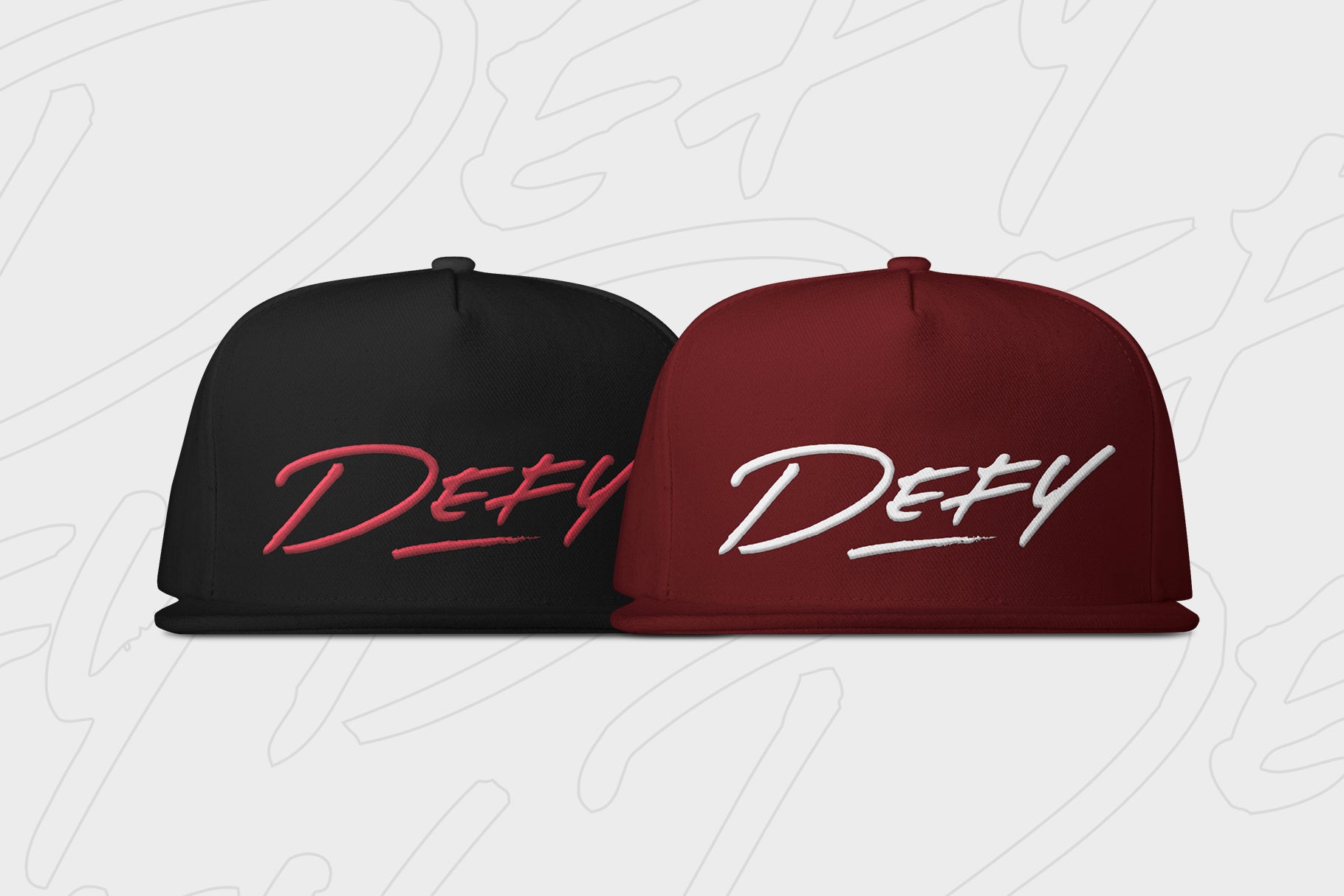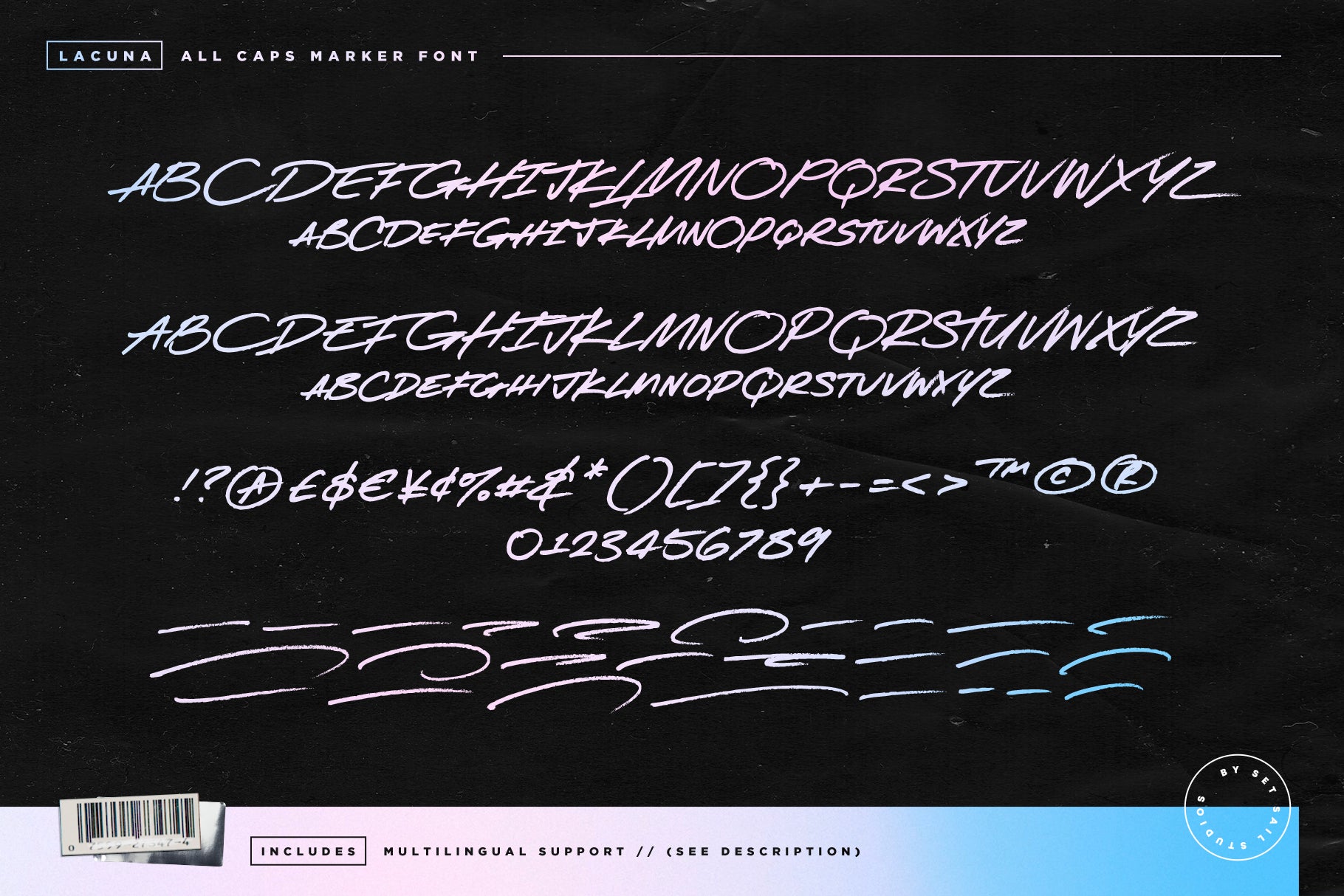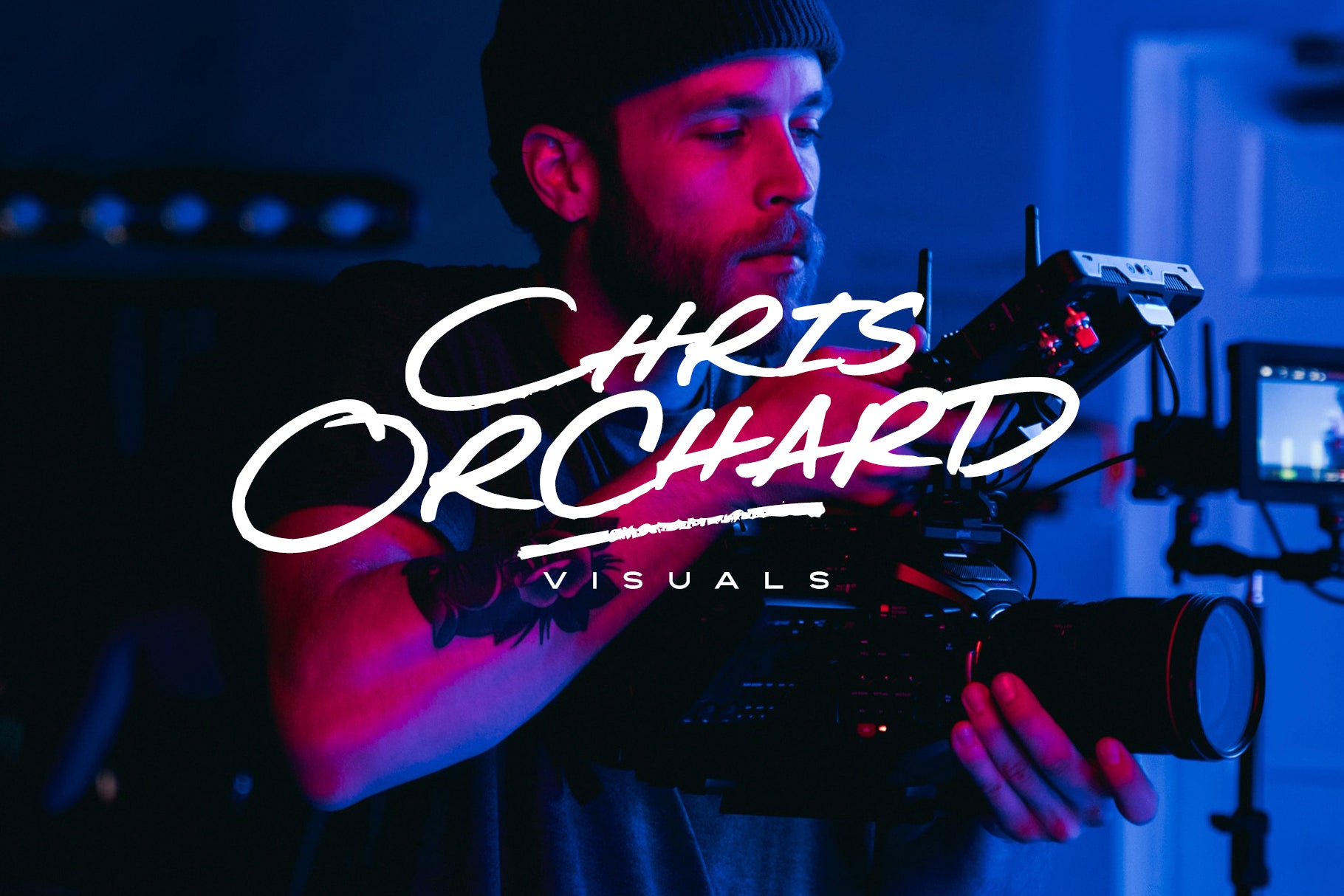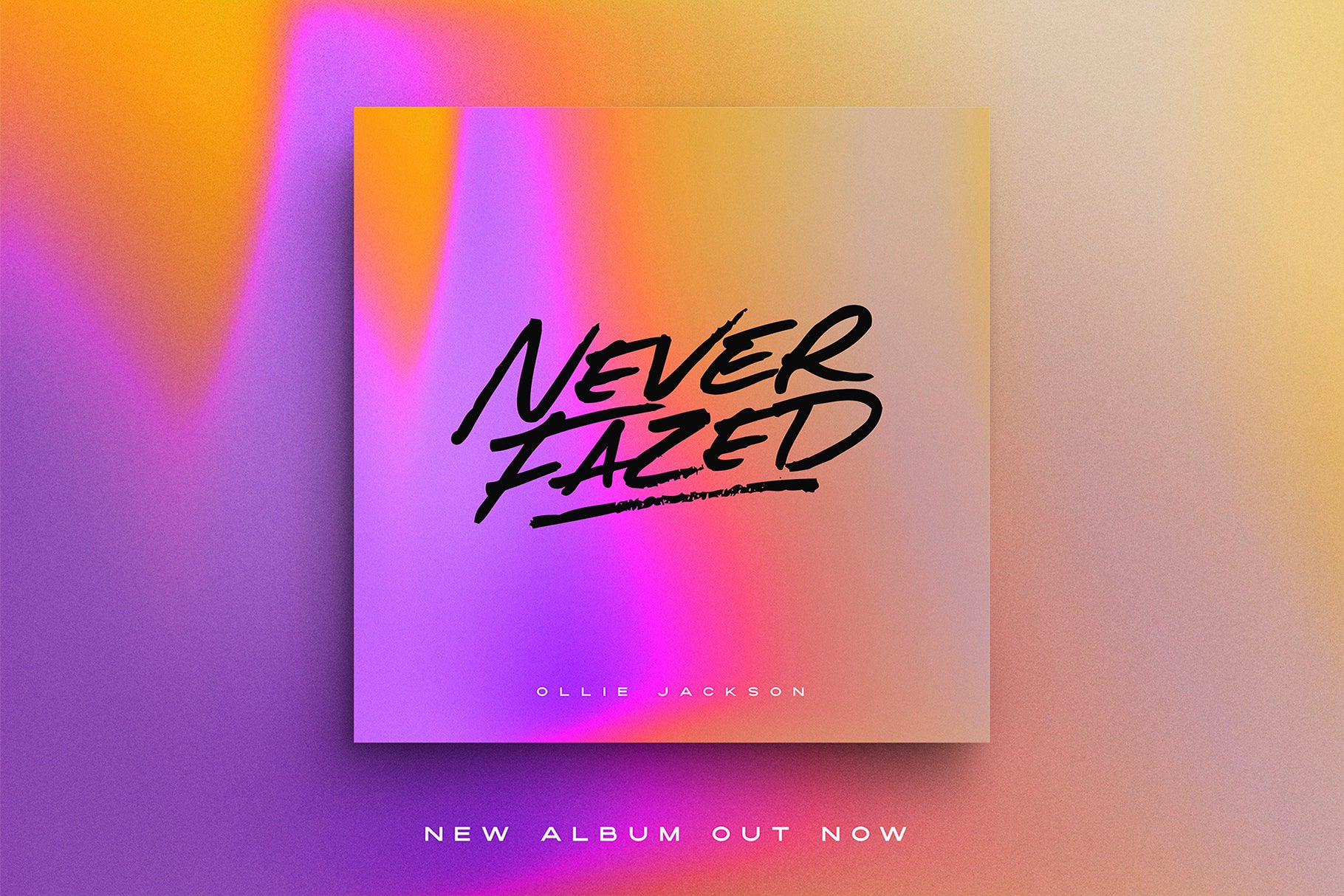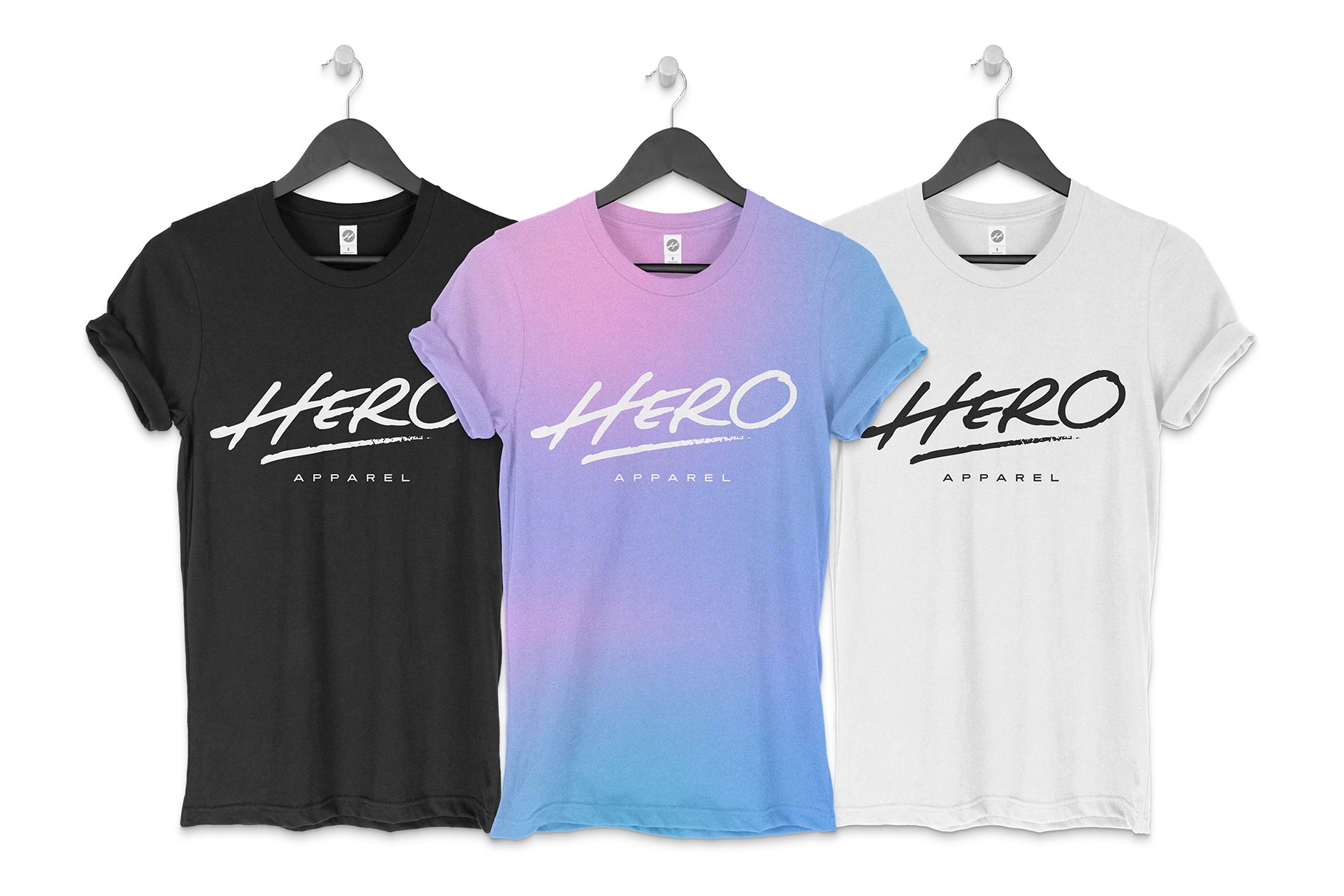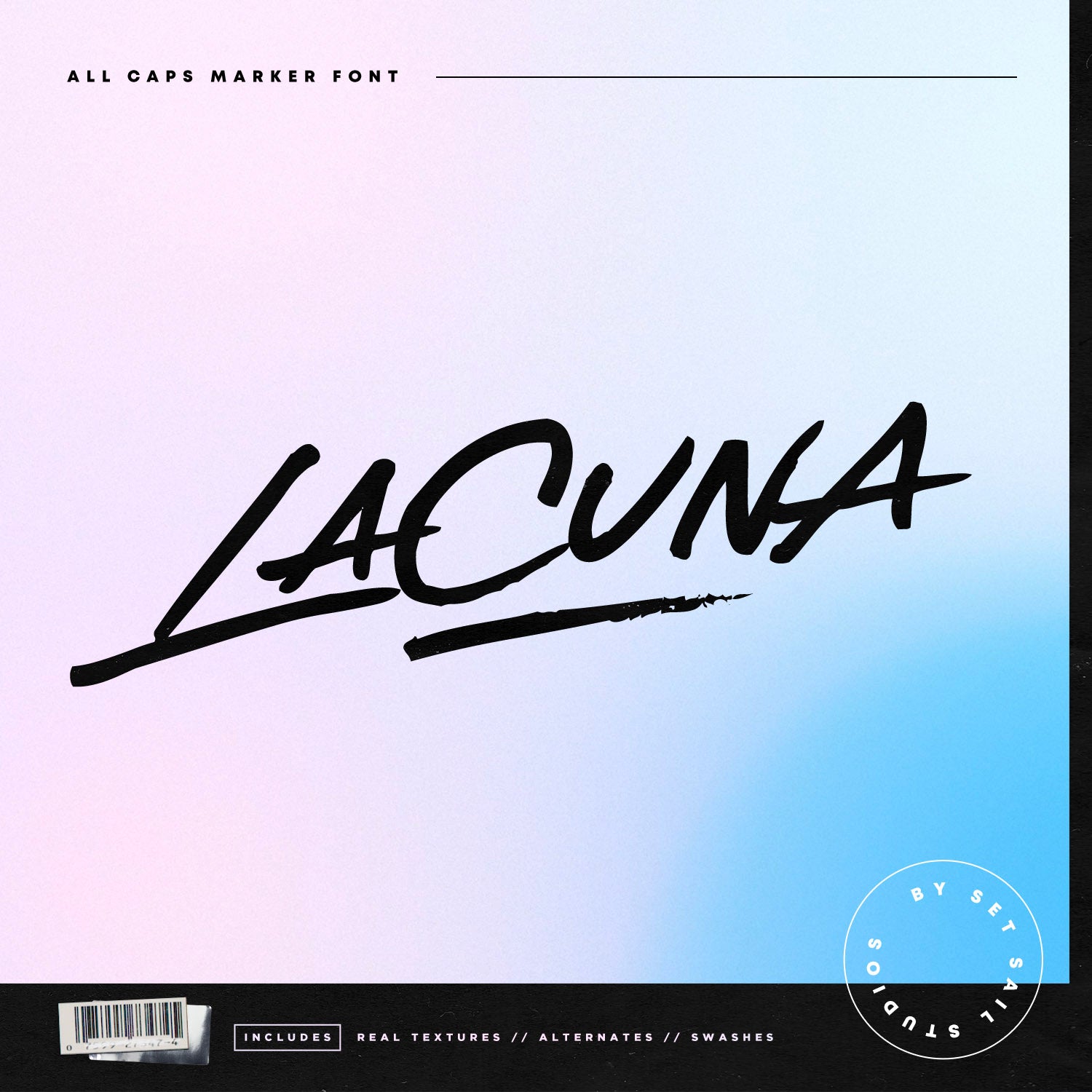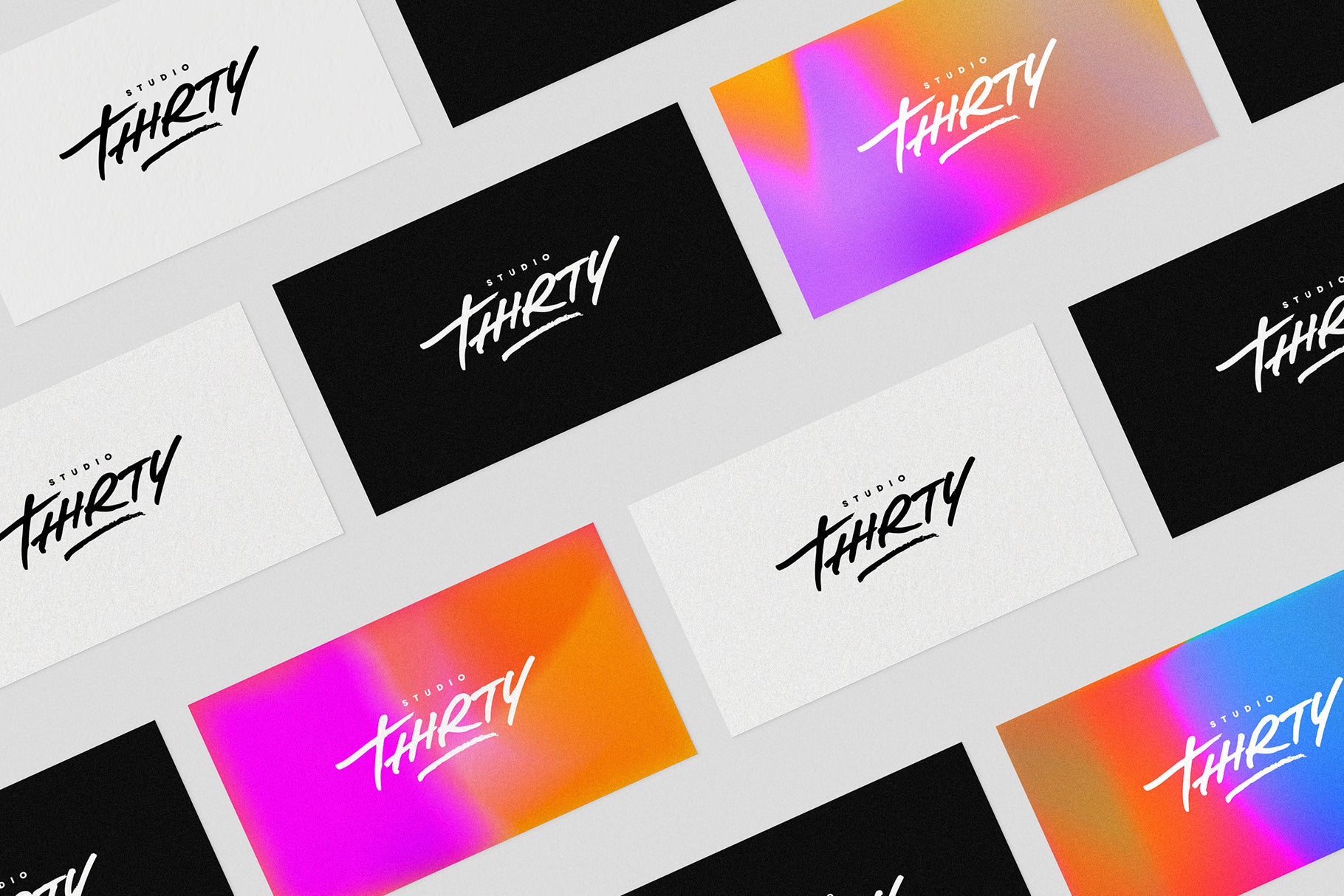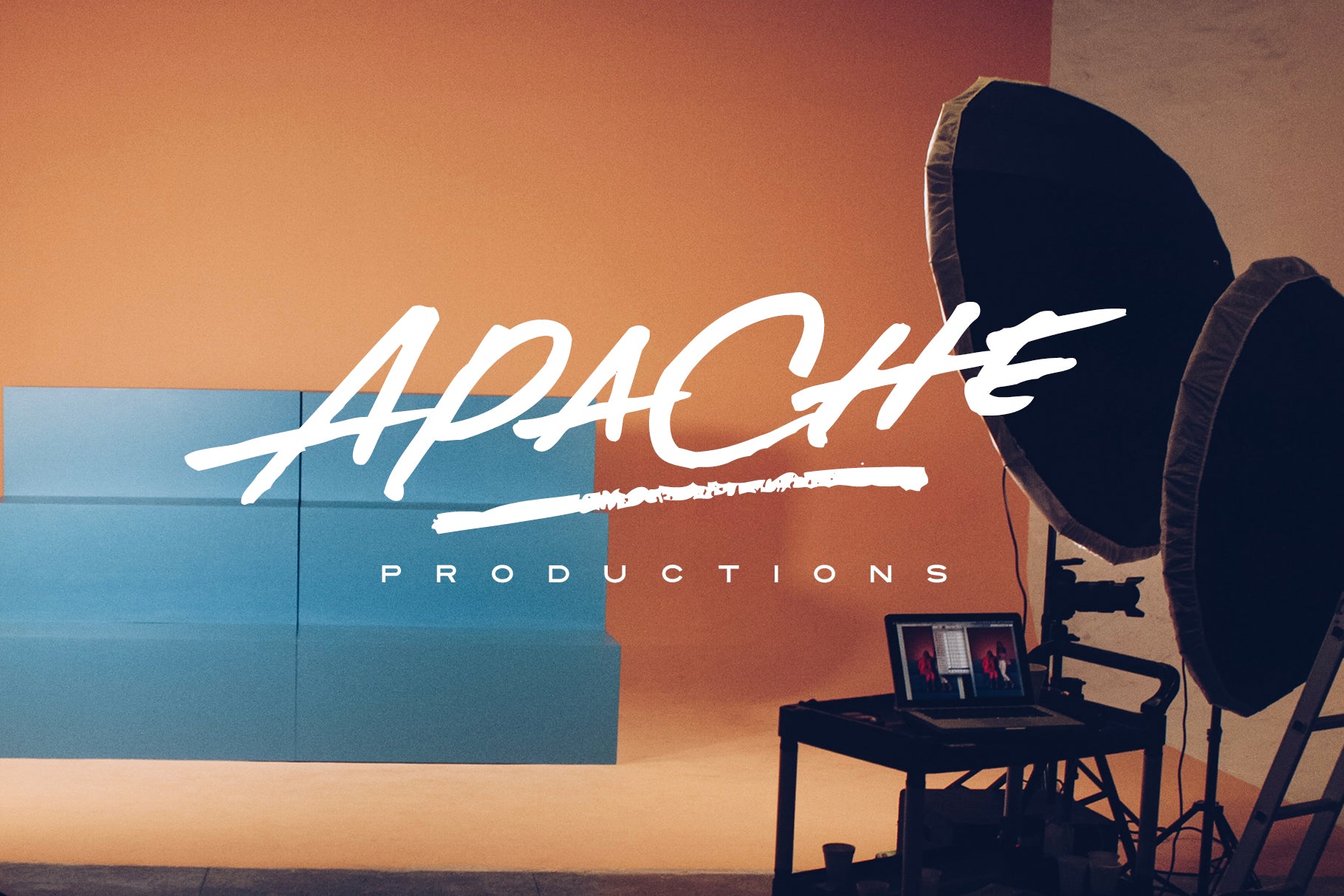
Lacuna Marker Font
The Lacuna Marker Font is a hand-drawn all-caps font featuring realistic textures created with a marker pen. It includes a full alternate set of upper and lowercase characters, along with 26 swashes for added customization, and supports multiple languages including English, French, Spanish, and more.